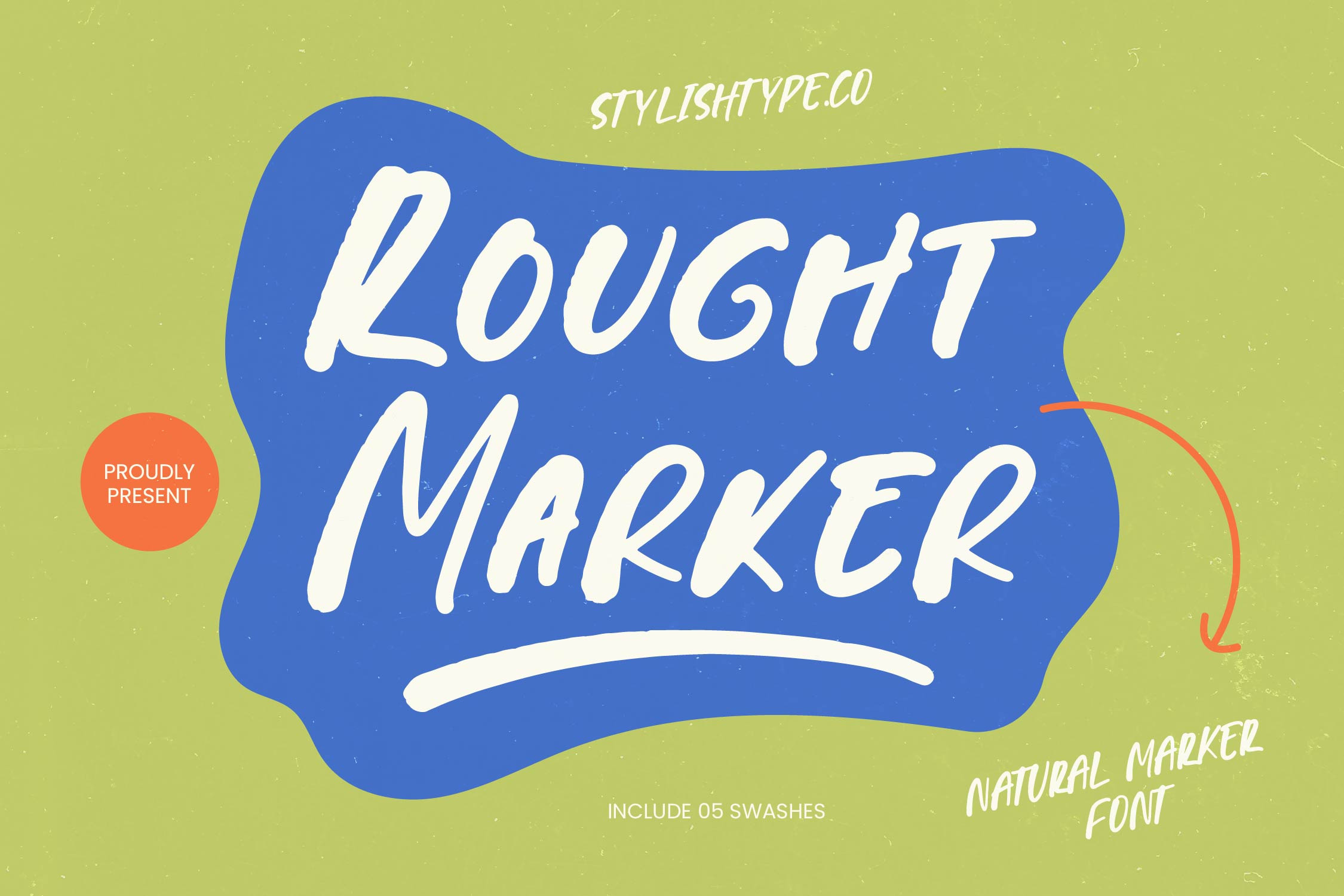
Rought Marker Natural Marker Font
Rought Marker - Natural Marker Font , Experience the raw energy of authentic craftsmanship with Rought Marker - Natural Marker Font, a typeface designed to bring an organic, hand-drawn aesthetic to your digital canvas. This natural marker font captures the tactile imperfections of real ink on paper, offering a bold visual impact that feels both personal and powerful. Whether you are aiming for a gritty street-style look or a friendly, approachable vibe, this font provides the texture and personality needed to make your headlines stand out.
Expand your creative horizons with a typeface built for the modern, interconnected world. With its extensive multilingual support, Rought Marker - Natural Marker Font adapts seamlessly across global markets, making it incredibly versatile for international projects. This global compatibility ensures that your message remains consistent and professional, regardless of the linguistic requirements. By integrating multi-language glyphs, the Rought Marker - Natural Marker Font empowers designers to scale their brand presence across borders without sacrificing its distinctive artistic character.
Discover the ultimate solution for high-impact visual communication and brand storytelling. Perfectly suited for modern lifestyle branding, this typeface excels in apparel design, creative packaging, and dynamic social media graphics. The inclusion of custom swashes allows for further tailored compositions, making it ideal for editorial layouts and promotional posters that demand attention. If you are looking to revitalize urban streetwear brands or artisanal product labels, Rought Marker - Natural Marker Font is the essential design tool for creating a memorable identity.
Elevate your design portfolio by bridging the gap between raw artistry and commercial functionality. Achieve a high-end, professional finish while maintaining an effortless, casual flow in every project. The Rought Marker - Natural Marker Font is meticulously optimized for high legibility and digital performance, ensuring your typography looks stunning in both print and web environments. Invest in the Rought Marker - Natural Marker Font to secure a versatile asset that translates an authentic human touch into commercial success.